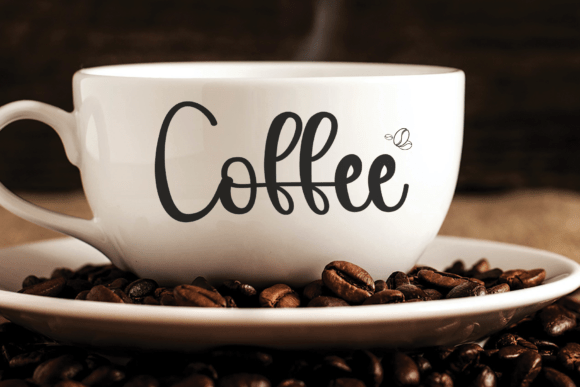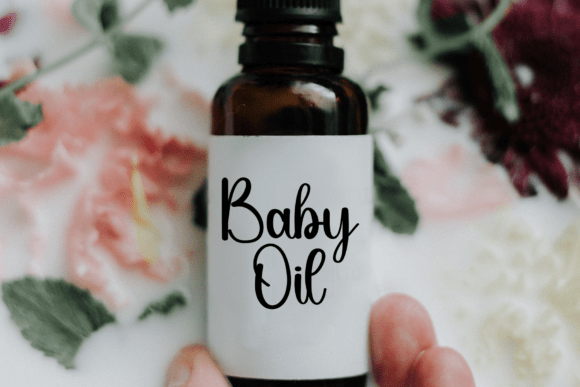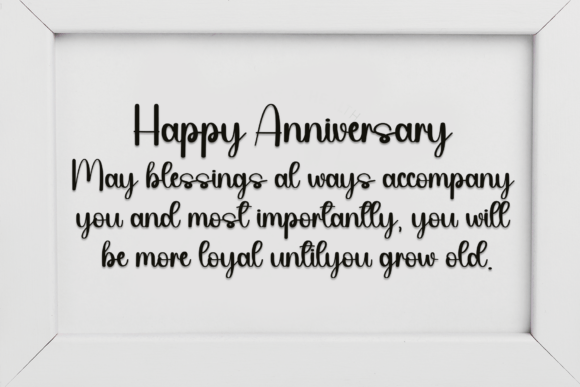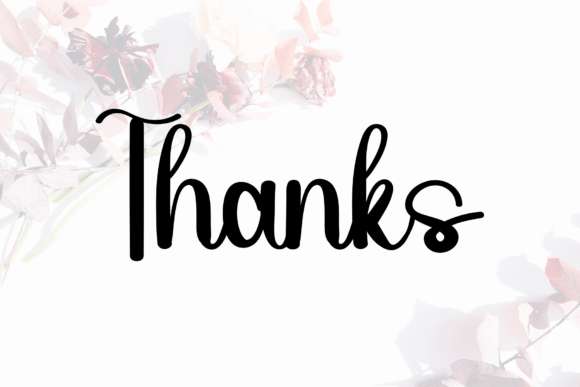
Introducing Handwritten Font: Add a Touch of Warmth to Your Designs
Are you looking for a font that can add a personal touch to your design projects? Look no further than Handwritten Font, a sweet and beautiful handwritten font that is sure to bring a cozy accent to any design you create. Featuring characters that dance along the baseline, this font is perfect for designers and crafters who want to add a touch of warmth and personality to their work.
The Charm of Handwritten Font
Handwritten Font is a unique and charming font that is designed to mimic the look of handwritten text. With its flowing curves and irregularities, this font has a distinctly human feel that is sure to make your designs stand out. Whether you’re creating a logo, a poster, or a social media graphic, Handwritten Font is the perfect choice for adding a touch of personality and whimsy to your work.
Key Features of Handwritten Font
- Unique Character Design: Each character in Handwritten Font is carefully designed to dance along the baseline, creating a sense of movement and energy.
- Handwritten Look: The font features a distinctly handwritten look, with flowing curves and irregularities that give it a human feel.
- Cozy Accent: Handwritten Font is perfect for adding a cozy accent to any design project, from logos and posters to social media graphics and more.
- Easy to Read: Despite its handwritten look, Handwritten Font is easy to read and understand, making it perfect for use in a variety of design projects.
Uses for Handwritten Font
Handwritten Font is a versatile font that can be used in a wide range of design projects, including:
- Logos: Add a personal touch to your logo with Handwritten Font, perfect for businesses and brands that want to stand out.
- Posters: Create eye-catching posters with Handwritten Font, perfect for advertising events, promotions, and more.
- Social Media Graphics: Add a touch of personality to your social media graphics with Handwritten Font, perfect for creating engaging and shareable content.
- Stationery: Use Handwritten Font to create beautiful and unique stationery, perfect for personal or business use.
Tips for Using Handwritten Font
Here are a few tips for getting the most out of Handwritten Font:
- Use it sparingly: Handwritten Font is best used sparingly, as too much of it can be overwhelming. Use it to add a touch of personality to your design, but balance it with other fonts and elements.
- Experiment with colors: Handwritten Font looks great in a variety of colors, so don’t be afraid to experiment and find the perfect hue for your design.
- Pair it with other fonts: Handwritten Font pairs well with a variety of other fonts, so try pairing it with a bold font for headings or a clean font for body text.
Handwritten Font is a beautiful and unique font that is sure to add a touch of warmth and personality to any design project. With its flowing curves and irregularities, this font has a distinctly human feel that is perfect for designers and crafters who want to create engaging and shareable content. Whether you’re creating a logo, poster, or social media graphic, Handwritten Font is the perfect choice for adding a cozy accent to your design.